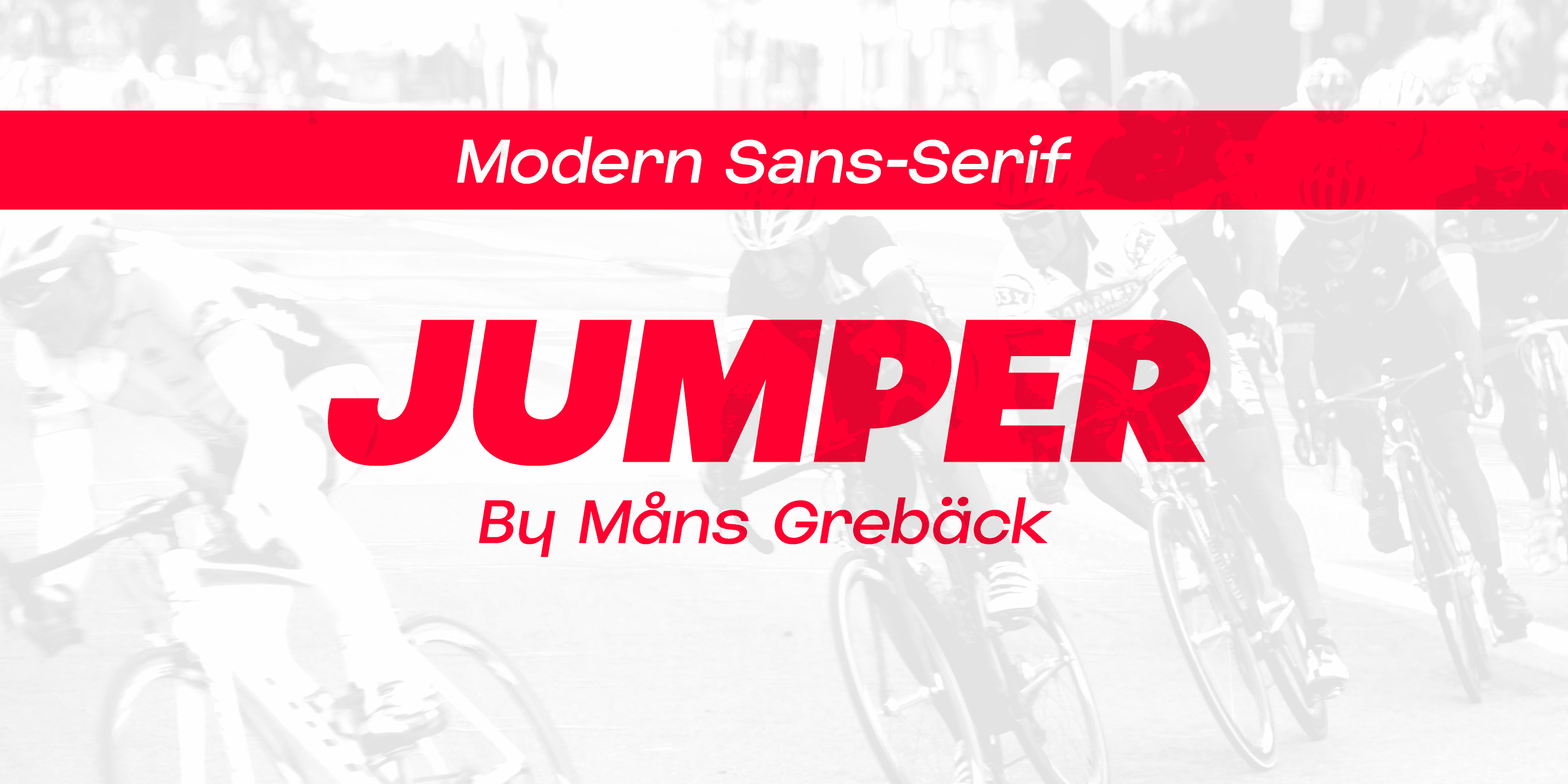
The Jumper Font excels in various design applications including energetic sports branding, dynamic athletic marketing, bouncing trampoline park signage, exciting playground communications, lively children's activity materials, vibrant fitness center identities, playful youth program promotions, energetic dance studio marketing, dynamic adventure park signage, and spirited recreational projects that demand bouncing energy and athletic sophistication.
What makes the Jumper Font exciting is its dynamic embodiment of athletic energy and playful movement through letterforms that capture the essence of jumping motion and the exhilarating feeling of defying gravity. This typeface demonstrates exceptional vitality through carefully crafted characters that suggest the upward thrust of athletic jumps, the bouncing rhythm of energetic play, and the infectious enthusiasm that comes from physical activity and joyful movement. The font's energetic personality makes it perfect for sports facilities and youth organizations seeking to communicate active lifestyle, physical excitement, and the kind of boundless energy that inspires people to leap into action through typography that literally bounces with athletic enthusiasm.
The Jumper Font family typically includes dynamic weight variations that enhance the bouncing aesthetic, featuring energetic styling options and extended character sets optimized for sports marketing and youth communications. These family options often include motion-inspired alternates, athletic symbols, and playful decorative elements that provide designers with comprehensive tools for creating authentically energetic typography that celebrates physical activity while maintaining contemporary design appeal and motivational impact.
Sports professionals and youth activity organizations consistently choose Jumper Font Free Download for projects requiring typography that communicates athletic energy and playful excitement. This typeface delivers exceptional performance in sports marketing, youth programming, and recreational communications where establishing energy and inspiring physical participation is essential for community engagement. The font's bouncing character makes it particularly effective for trampoline and gymnastics applications. Download Jumper Font Free Download today to access this energetic typeface that transforms athletic communications with its bouncing vitality and playful sophistication, creating compelling sports experiences that celebrate the joy of physical movement while inspiring the kind of energetic participation that makes active lifestyle irresistibly appealing and genuinely motivating.